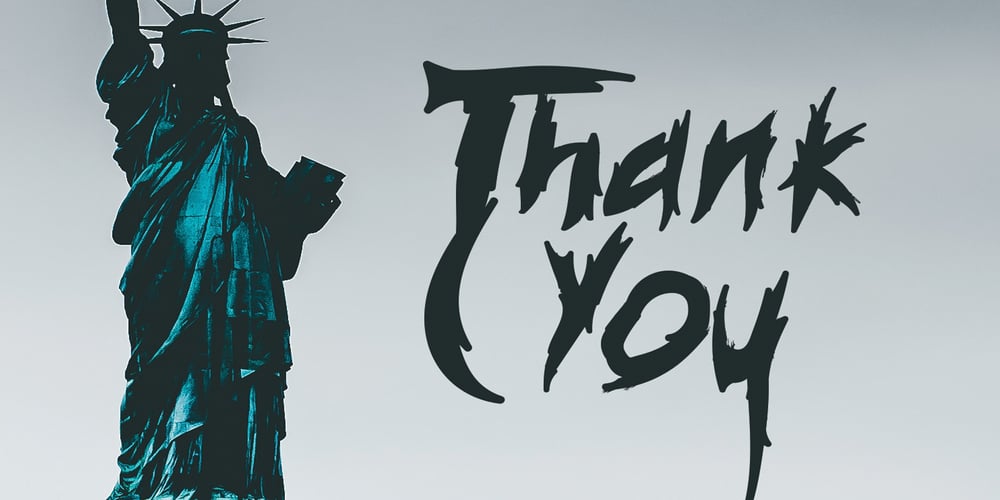
Hypotermia
Hypotermia font
Hypotermia Font Family was designed by Asep Rendi and published by Arendxstudio. Hypotermia contains 1 styles and family package options. Hypotermia is very stylistic so you can easily create a logo for your band or whatever. It comes with basic characters and a group of symbols and signs that are often used in the extreme music sector – classic items from Death- and Blackmetal such as pentagrams and crosses, droplets, roots and branches.